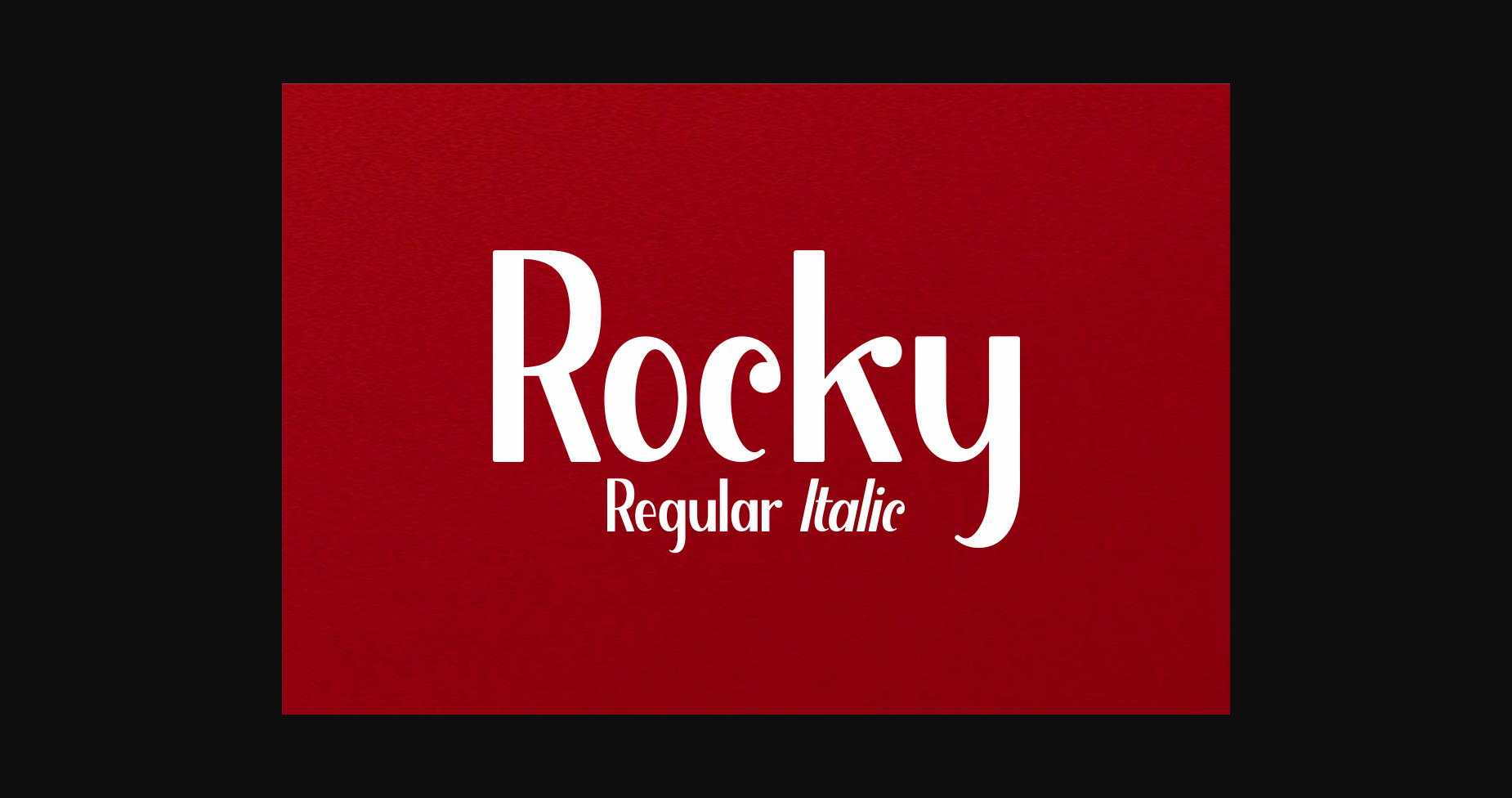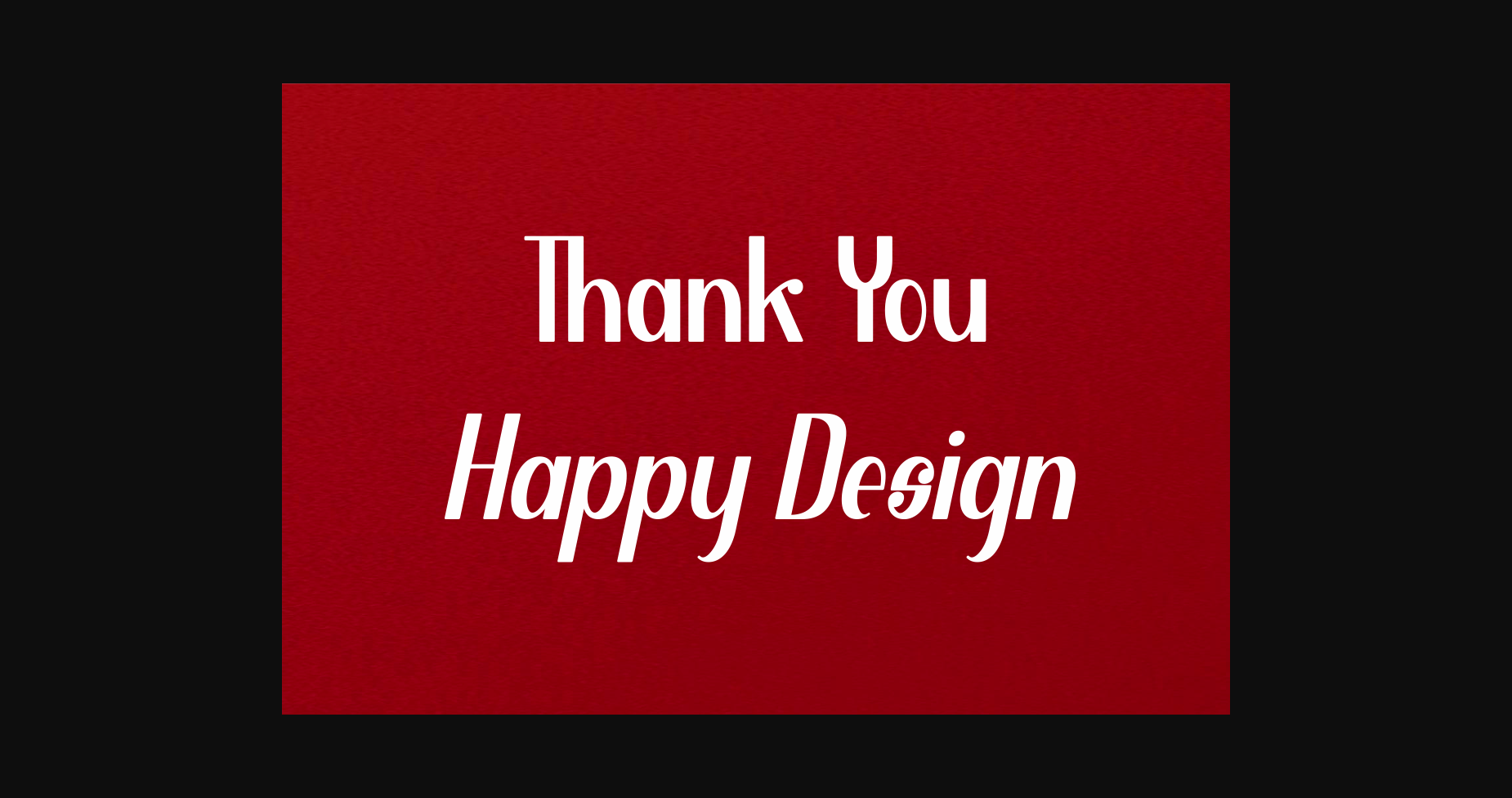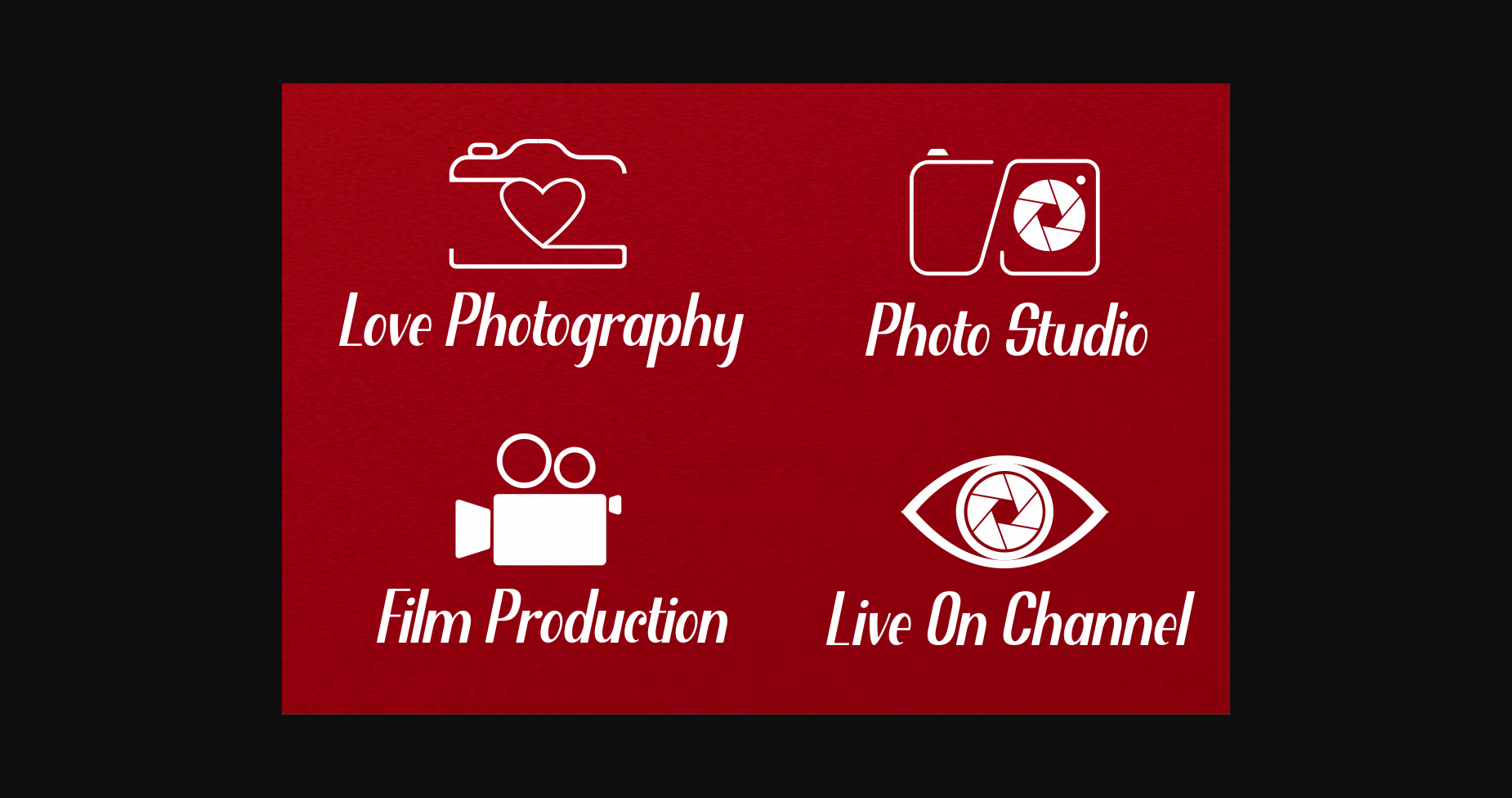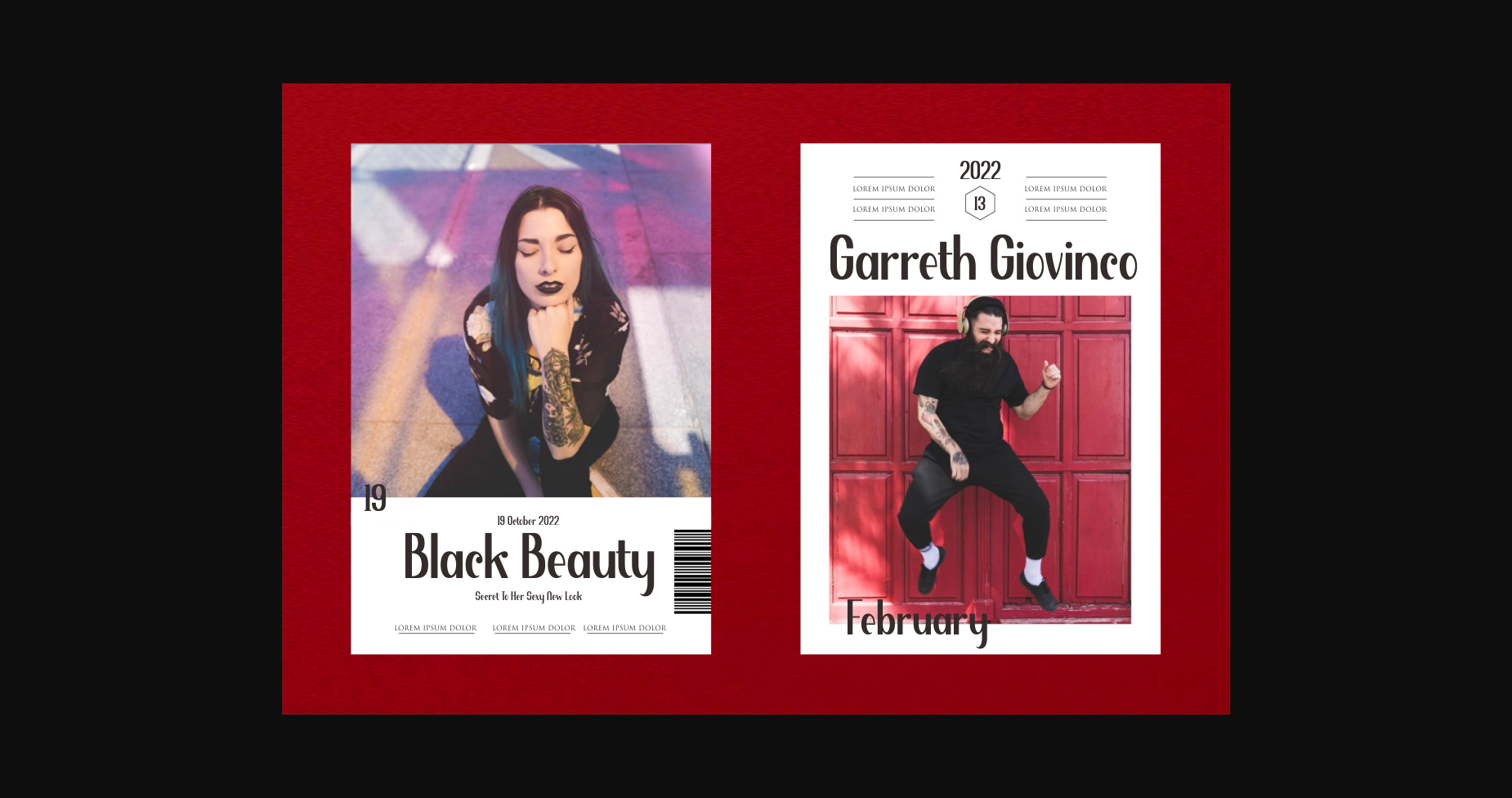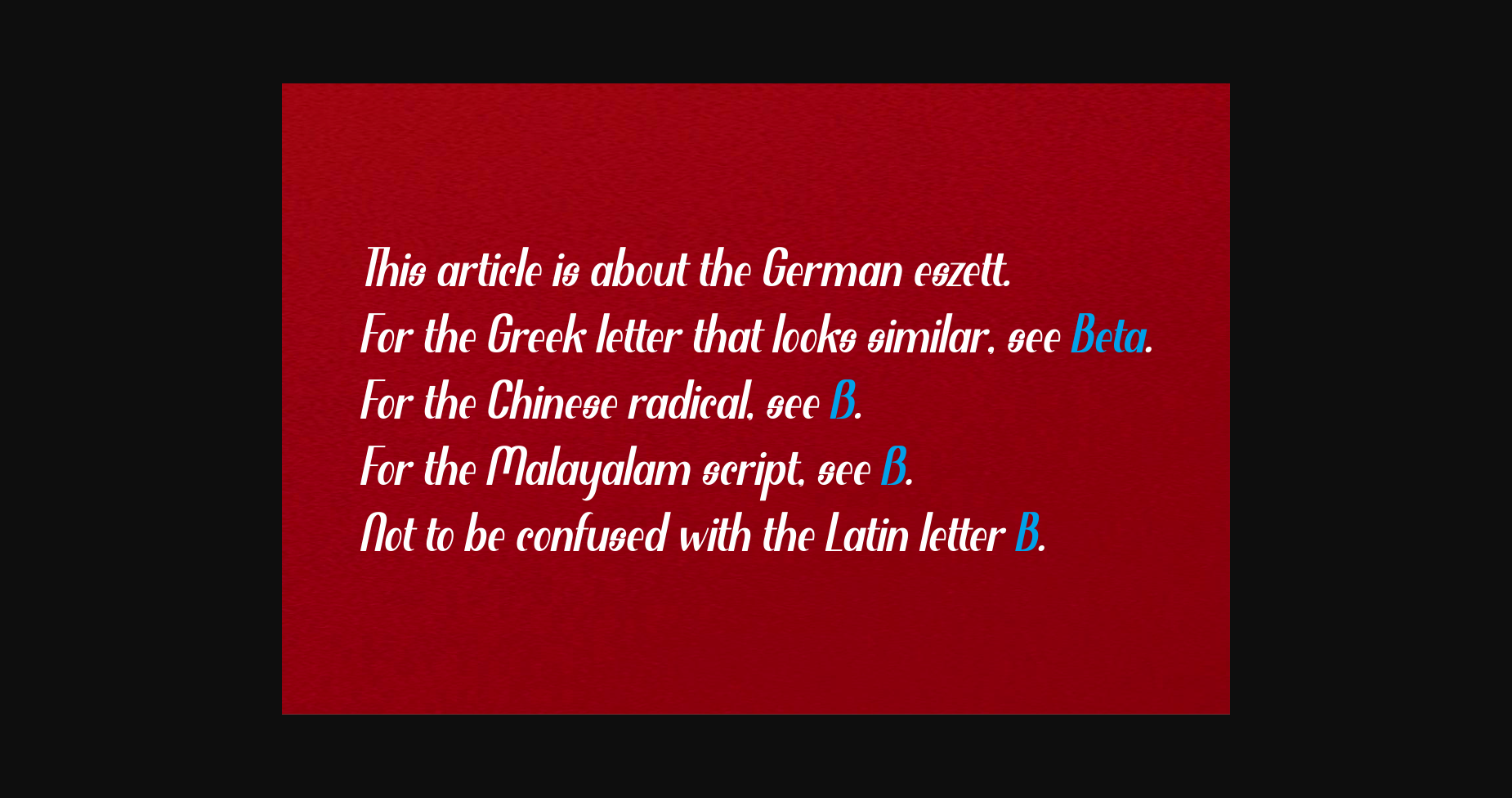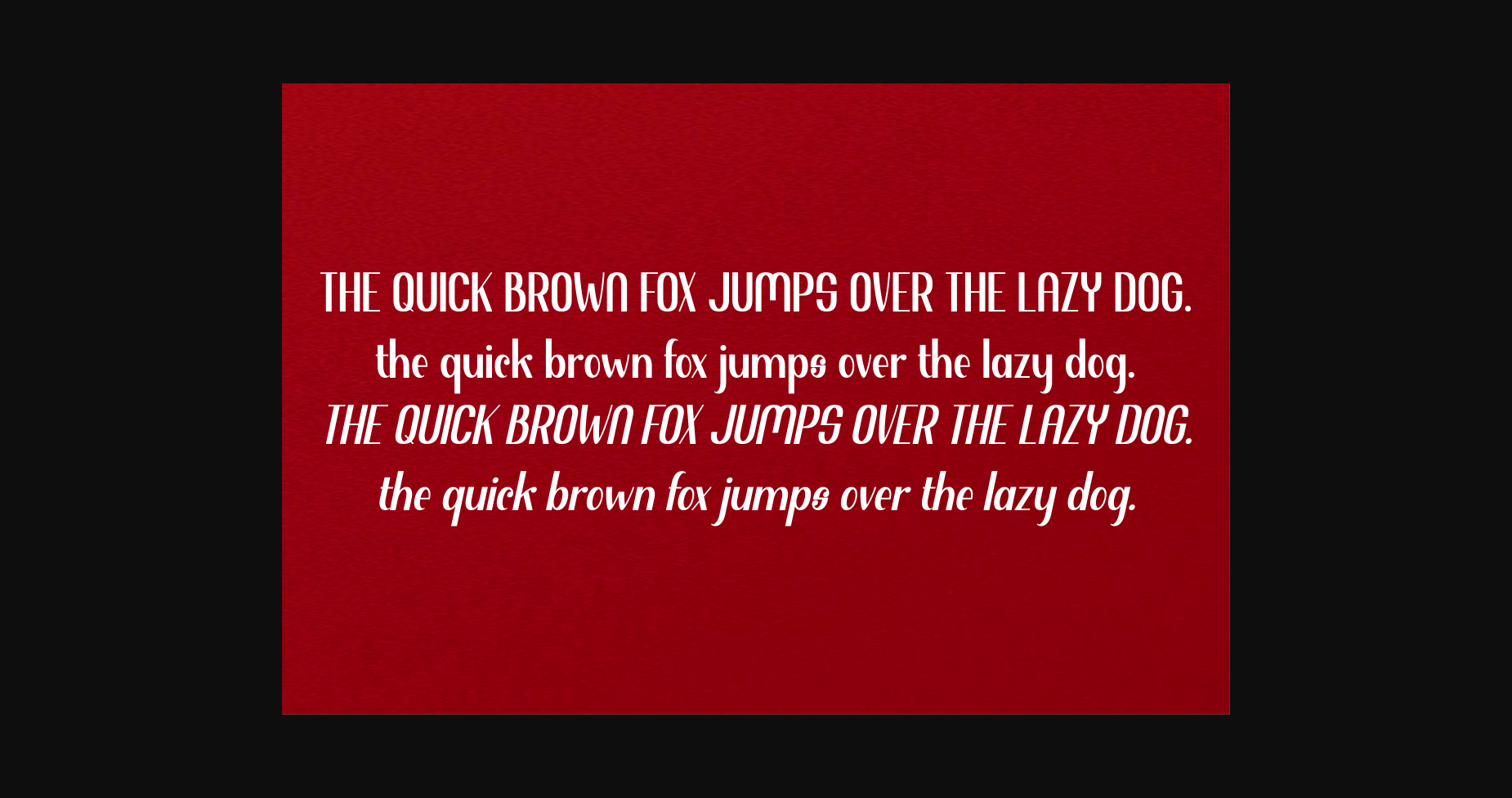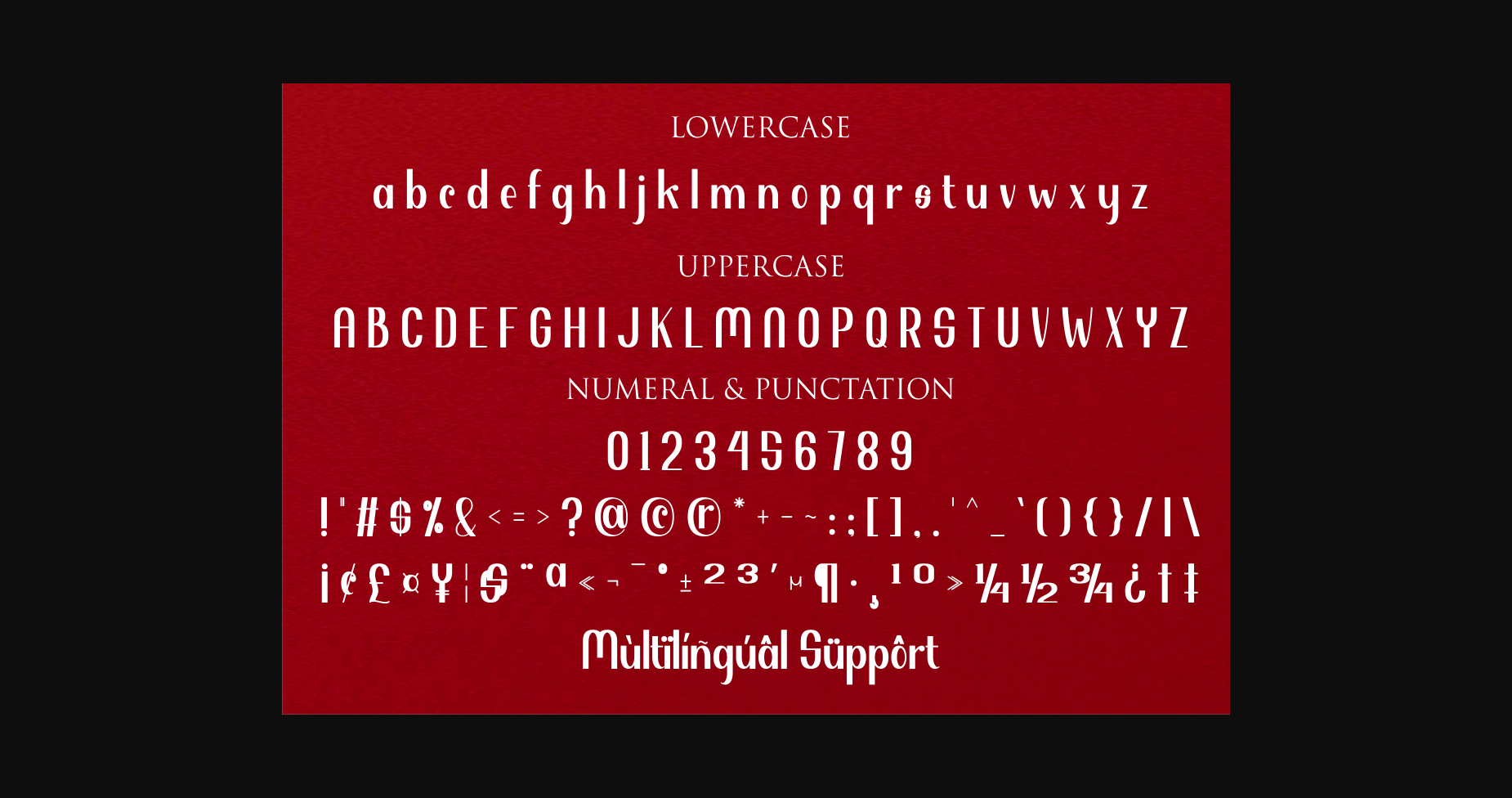
Rocky Font
About Rocky Font
Rocky is a modern sans serif font featuring tall characters that will take your projects to the next level!
This modern font is perfect for digital wedding blogs, online shops, social media, clothing, accessories, bags, pins, logos, business cards, watermarks, and many others.